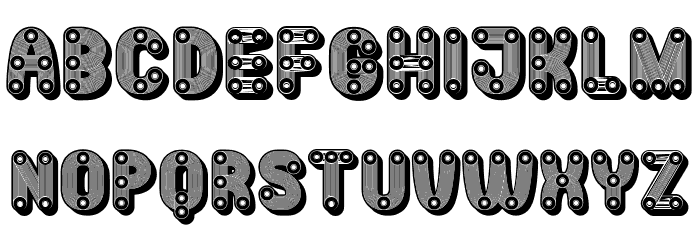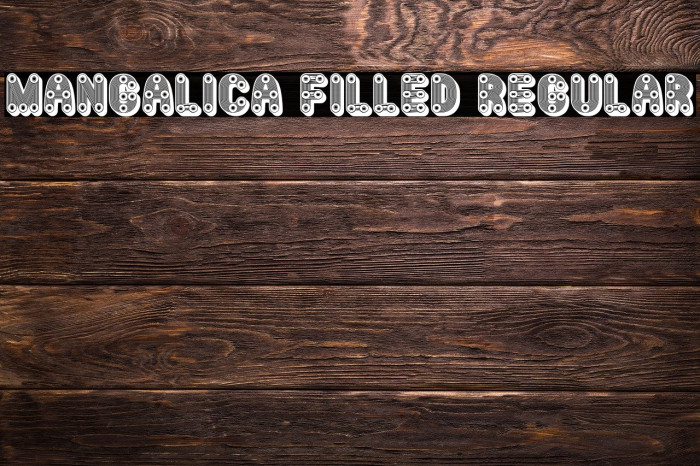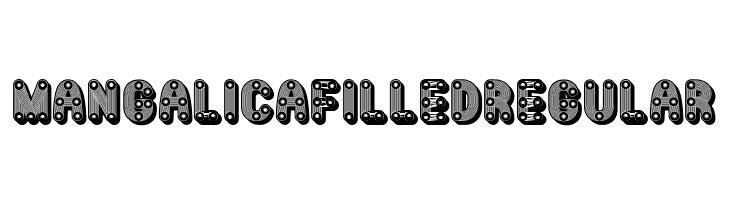
Mangalica Filled Regular Font
This font features a playful and bold design with a filled, decorative style. Each character is outlined with a thick border and filled with intricate patterns, creating a dynamic and eye-catching appearance. The letters are rounded and have a three-dimensional look, adding depth and texture. The font is highly stylized, making it suitable for creative and artistic projects where a unique and engaging typeface is desired. The design is consistent across uppercase letters, providing a cohesive and harmonious look.
A bold, decorative font with filled, patterned characters and a three-dimensional style.
- Proposed Projects: Ideal for posters, logos, children's books, and any project requiring a playful and artistic touch.
- Use Case: Logos, Posters, Creative projects